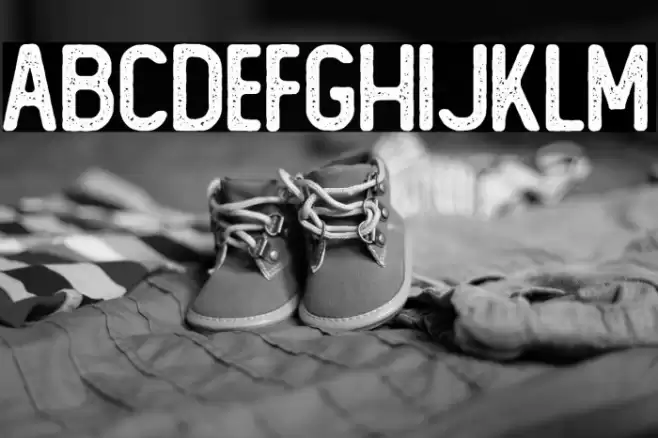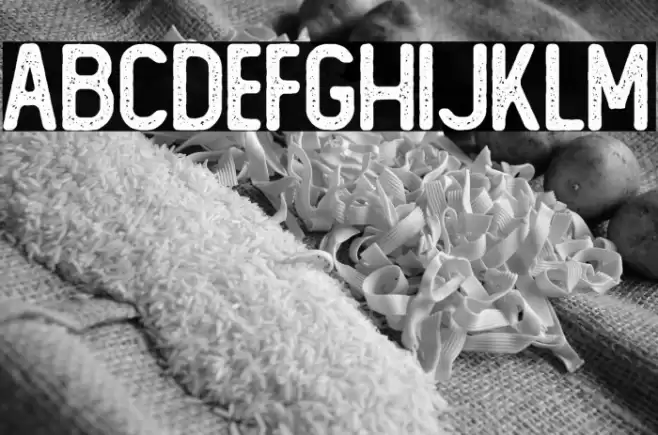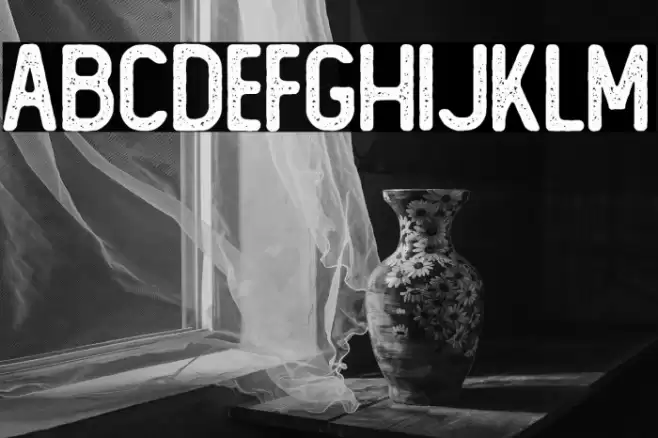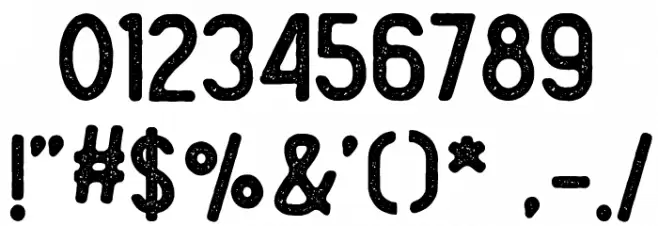
GRAHM Sans Rough Font
GRAHM Sans Rough Description
This font features a bold, rough texture that gives it a distressed, vintage appearance. The characters are sans-serif, with a consistent thickness throughout, contributing to a robust and sturdy look. The rough texture adds a tactile, handcrafted feel, making it stand out in any design. The uppercase and lowercase letters maintain a uniform height, providing a balanced and cohesive appearance. The numerals and special characters are designed to match the overall style, ensuring consistency across all text elements. This font's unique texture and bold presence make it ideal for projects that require a strong visual impact.
A bold, rough-textured sans-serif font with a vintage, handcrafted feel from Uncategorized fonts.
- Overall Style: Vintage